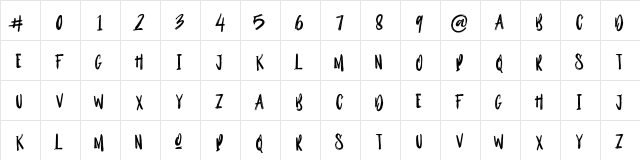
Outistyle Brush Personal Use Regular
| Foundry | Dikas Studio |
| Designer | Andika Setiawan |
Design Context for Outistyle Brush Personal Use Typeface
Outistyle Brush Personal Use flows with the natural rhythm of handwritten lettering, making it ideal for designs that call for warmth and personal expression.